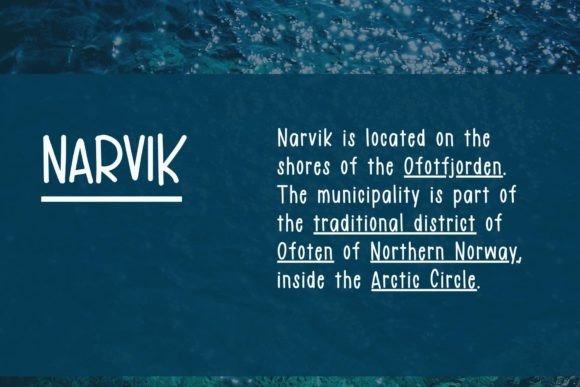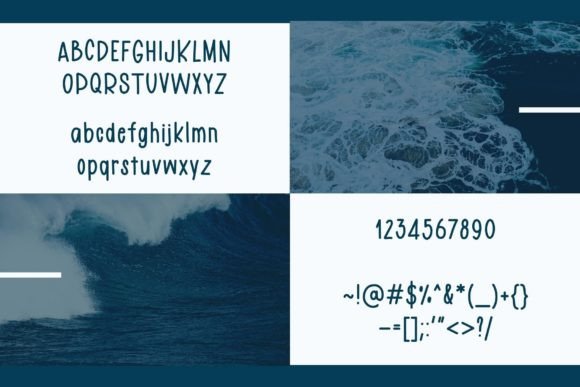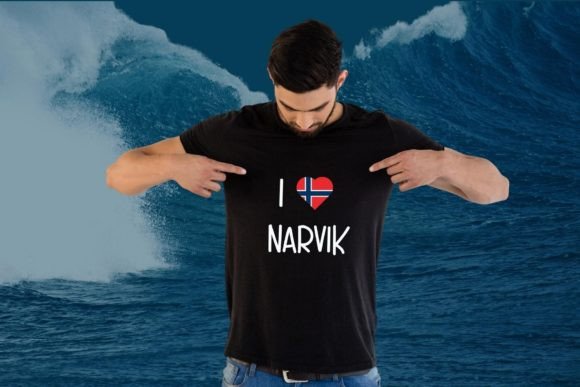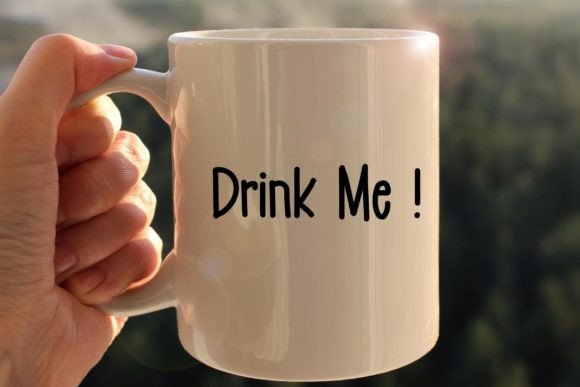
Introduction to Narvik Font
‘Narvik’ Fonts is a Handwritten script fonts.
Font design base on neat and cute Handwriting for neat, cute and friendly artwork Suitable for T-shirt design, mug, wall art, Bag, craft with funny quotes, digital designs, presentation, making greeting card, invitation card, sublimation and much more.